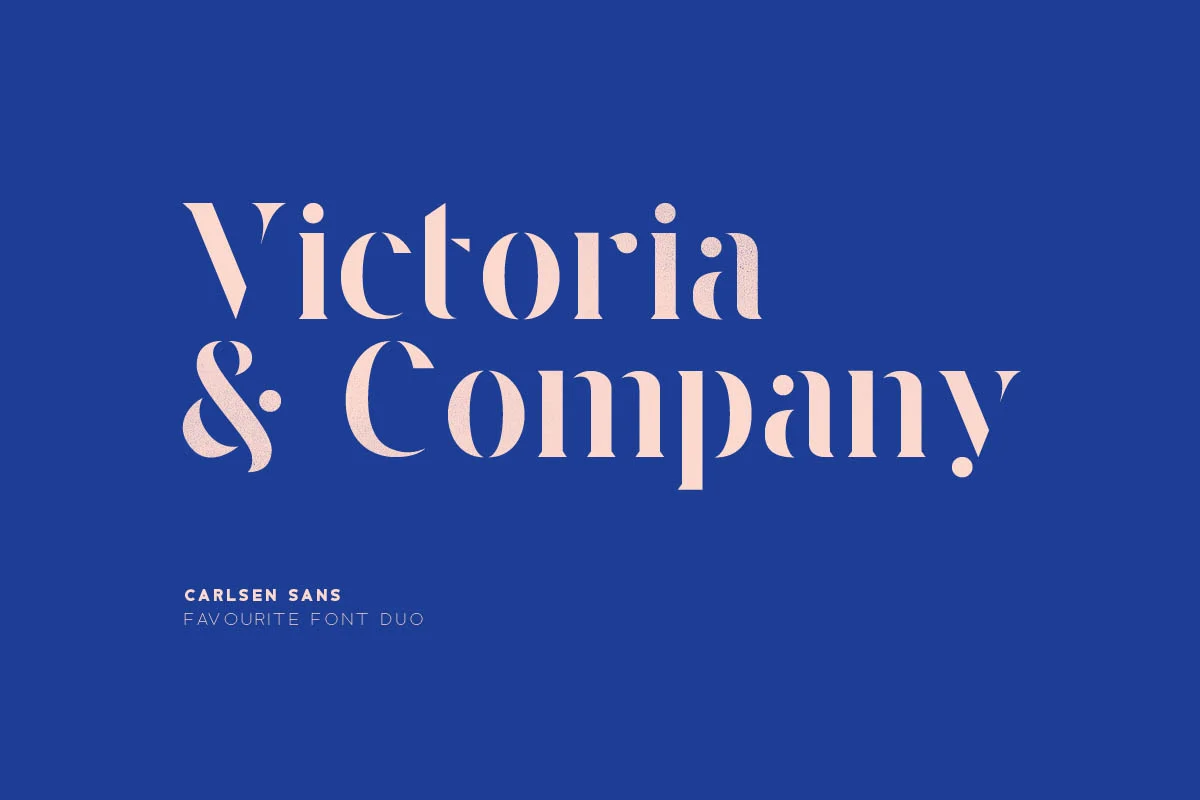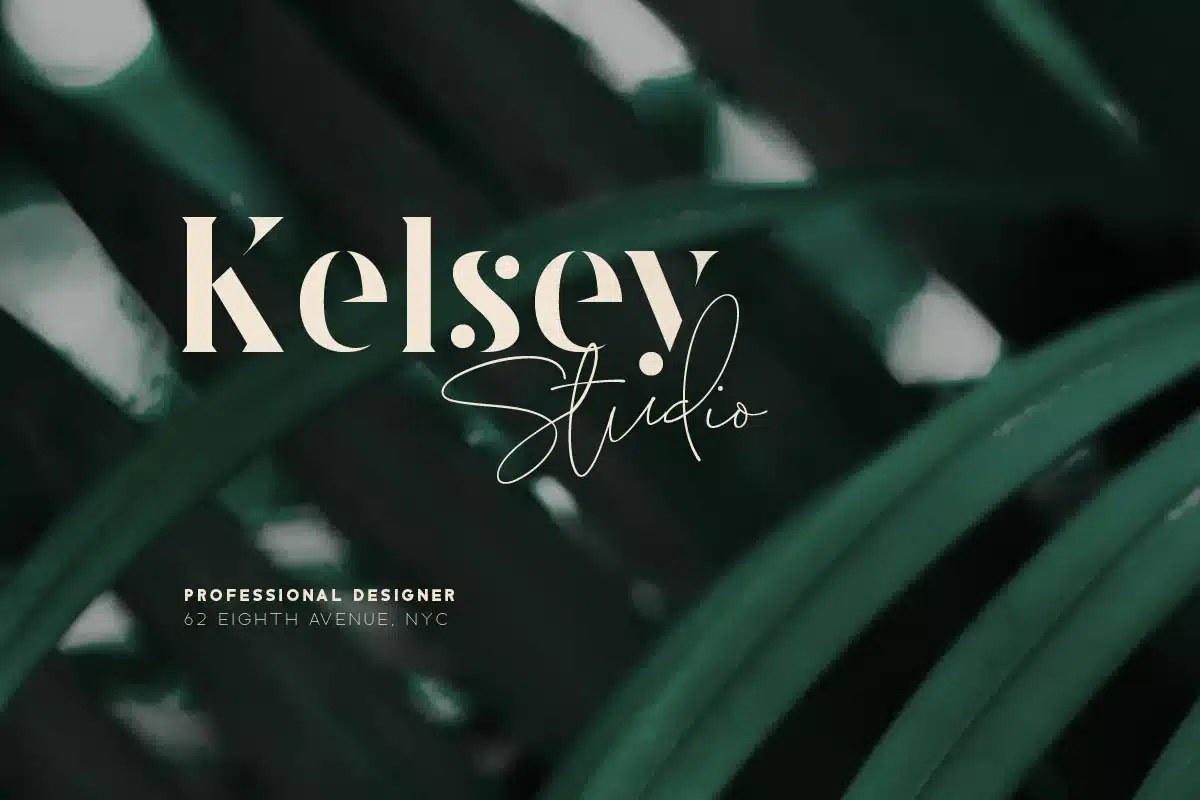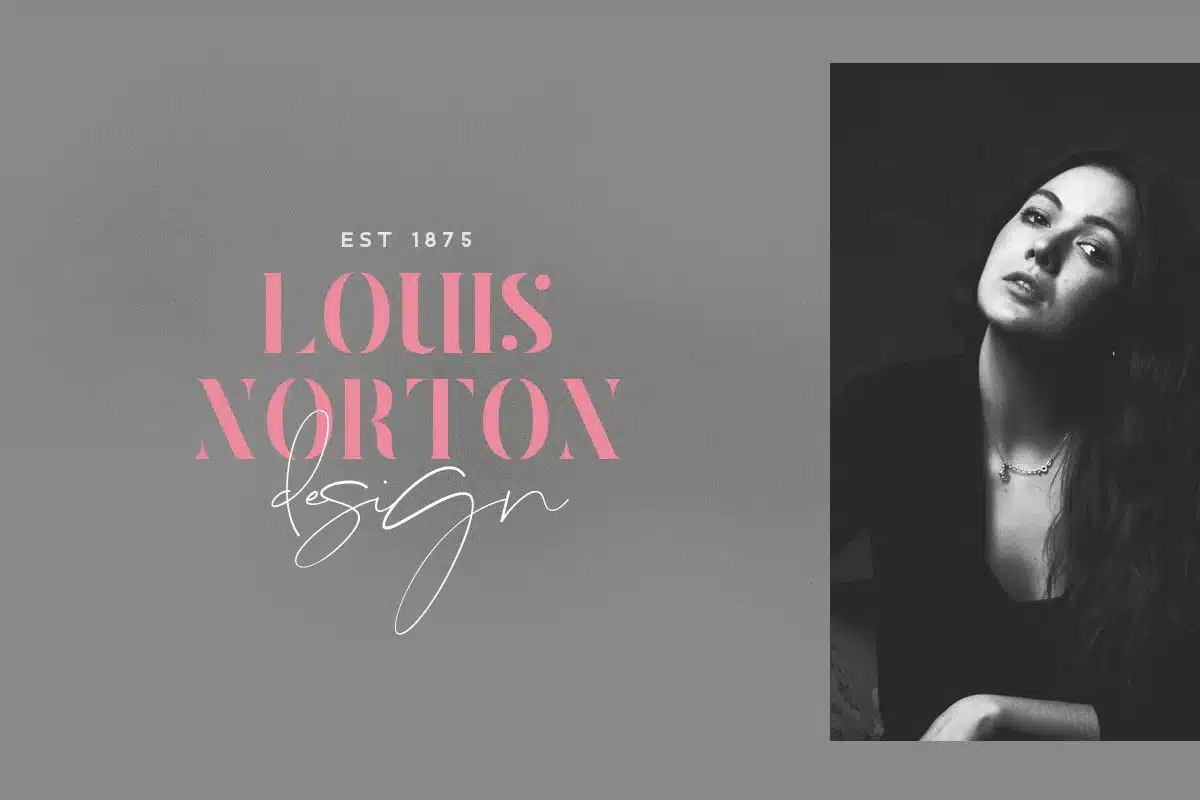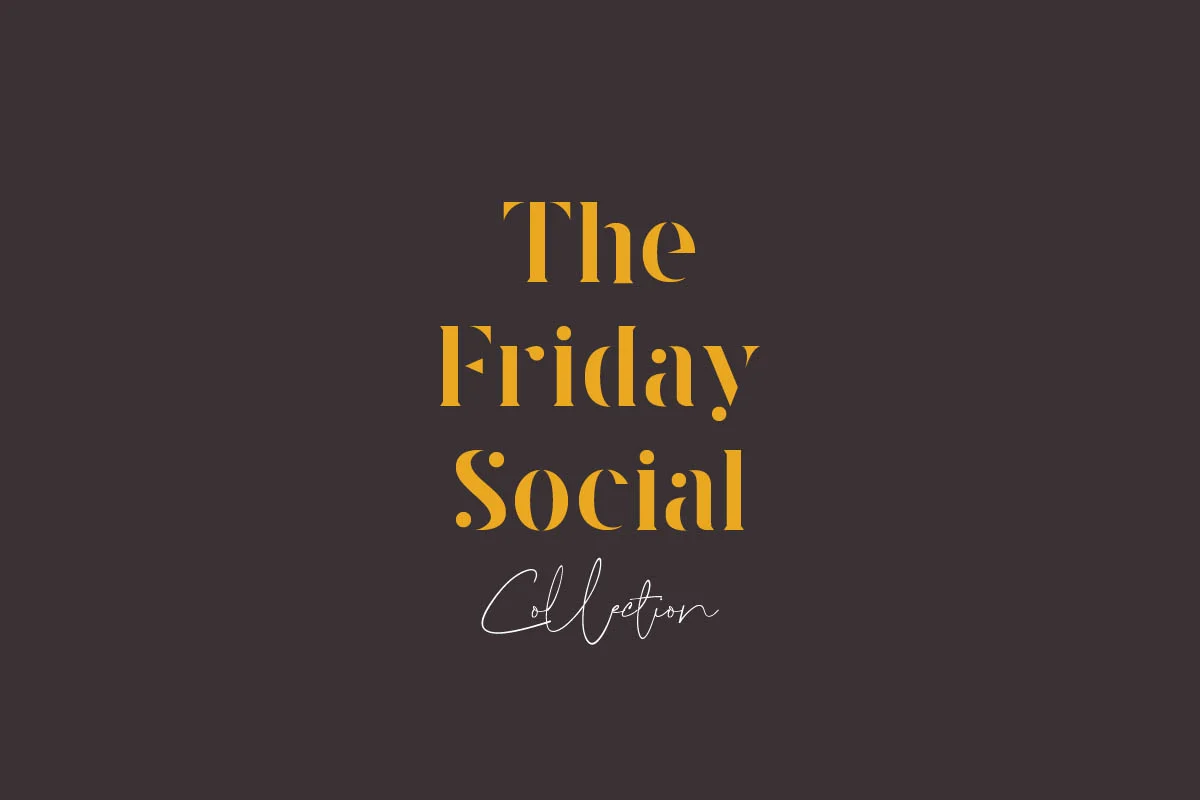
Lavagne Carlsen Duo Font
Introducing Carlsen new favourite font duo
Lavagne & Carlsen is perfect font duo with two different character. Both fonts complete each other and works perfect together, make your text looks beautiful. With modern script style this font will perfect for many different project ex: Instagram post, signature logo, watermark, quote, blog header, poster, wedding, branding, logo, fashion, apparel, letter, invitation, stationery, etc.
Lavagne & Carlsen font foreign languages support: ÀÁÂÃÄÅÆÇÈÉÊËÌÍÎÏÐÑÒÓÔÕÖØÙÚÛÜÝßàáâãäåæçèéêëìíîïðñòóôõöøùúûüýÿ